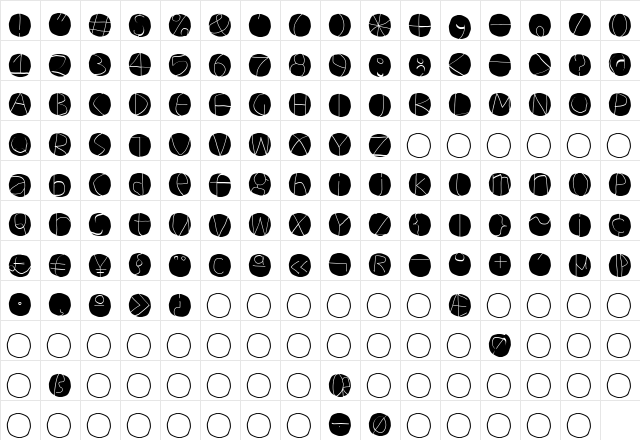
CirculumInvers Regular Font Preview
CirculumInvers Regular
Design Context for CirculumInvers Typeface
CirculumInvers is a composed and adaptable typeface that performs quietly and consistently across a wide range of design contexts.